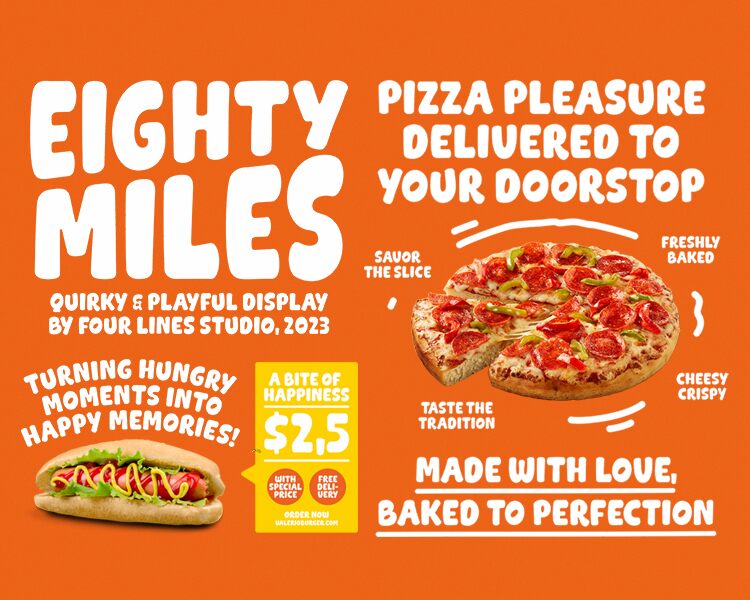
EIGHTY MILES
Eighty miles font by Four Lines is a cartoon-style bold display typeface. The rounded letter ends and the warm tones give any text typed in the font an inviting appearance. Some letters are simple in shape while others have dramatic retro wavy finishes that stand out more noticeably. Overall, a contemporary use reminiscent of old vintage signage applications is achieved.